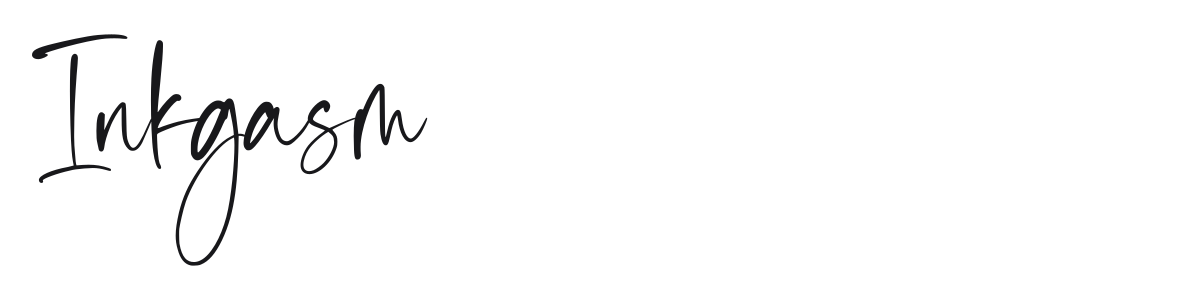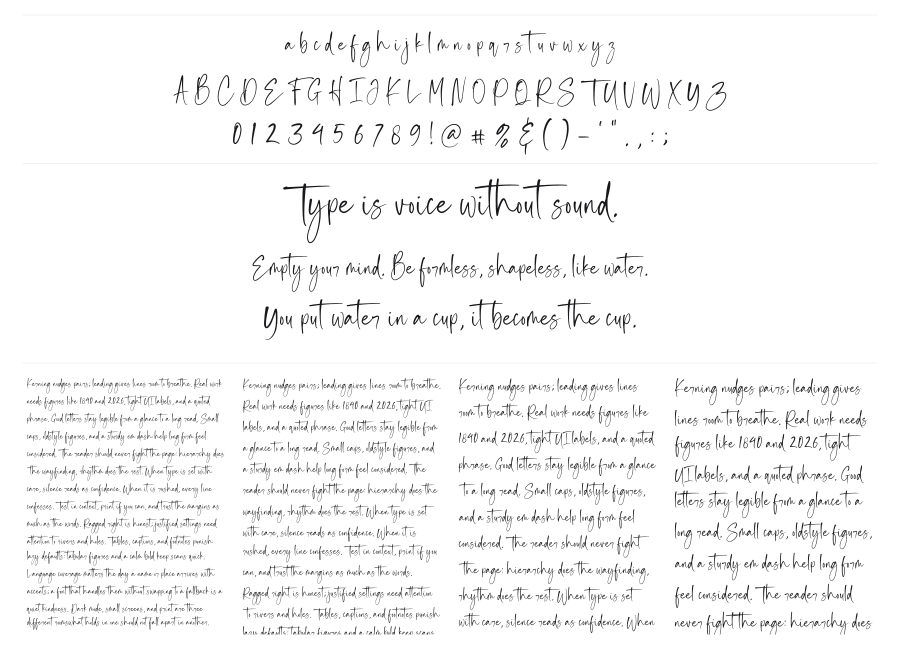
Inkgasm
Inkgasm is a casual handwritten script with a light, breezy quality and natural stroke variation. Long looping ascenders and connected letters give it an authentic, pen-written feel that stays approachable without becoming stiff. It includes ligatures that help the flow read even more naturally at headline sizes.